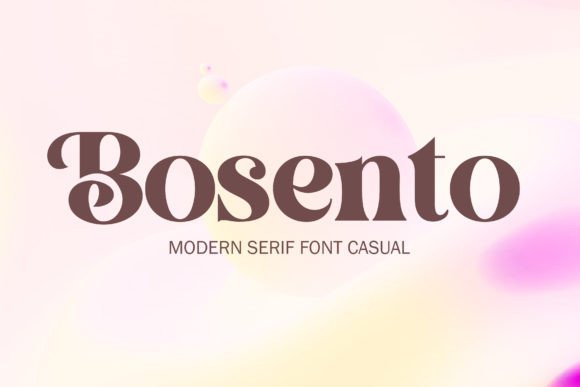
Journey into the Realm of Elegance and Distinction with Bosento: The Perfect Serif Font for Unforgettable Creations
In a world saturated with visual noise, differentiation is the key to capturing attention and leaving a lasting impact. Bosento, the exquisite serif font crafted by the visionary minds at gatype, emerges as your ultimate weapon in this battle for distinction. As a serif font, Bosento exudes an air of sophistication and timeless allure, effortlessly elevating your designs to new heights of elegance.
Unleash the Power of Bosento for Unparalleled Branding Experiences:
In the realm of branding, Bosento reigns supreme as the font of choice for those seeking to establish a distinctive and memorable brand identity. Its graceful serifs and elegant curves lend an aura of sophistication and professionalism to your logo, business cards, and marketing materials, ensuring that your brand stands out from the crowd. With Bosento, you'll make an indelible impression on your target audience, leaving them with a sense of admiration and trust.
Ignite Your Creativity with Bosento's Limitless Versatility:
Bosento is not merely a font; it's a versatile tool that unleashes your creativity and empowers you to bring your artistic visions to life. Whether you're designing captivating posters that demand attention or creating t-shirts that speak to the soul, Bosento beautifully adapts to your every need. Its timeless elegance adds a touch of refinement to invitations, designs for children, and editorial designs, transforming ordinary projects into extraordinary masterpieces.
Immerse Yourself in the World of Bosento's Enchanting Glyphs:
Beyond its aesthetic appeal, Bosento boasts a wealth of glyphs, including ligatures, that add a layer of refinement and visual interest to your designs. These carefully crafted glyphs elevate the overall look and feel of your projects, giving them a polished and professional edge. With Bosento, you'll have access to a treasure trove of typographic elements that will captivate your audience and leave them in awe of your creative prowess.
Craft Mesmerizing Designs that Transcend Time:
In an era where trends come and go, Bosento stands as a testament to enduring beauty and timeless appeal. Its classic serif design transcends the boundaries of time, ensuring that your creations remain relevant and captivating for years to come. With Bosento, you'll create designs that resonate with audiences of all ages and backgrounds, leaving a lasting legacy of visual excellence.